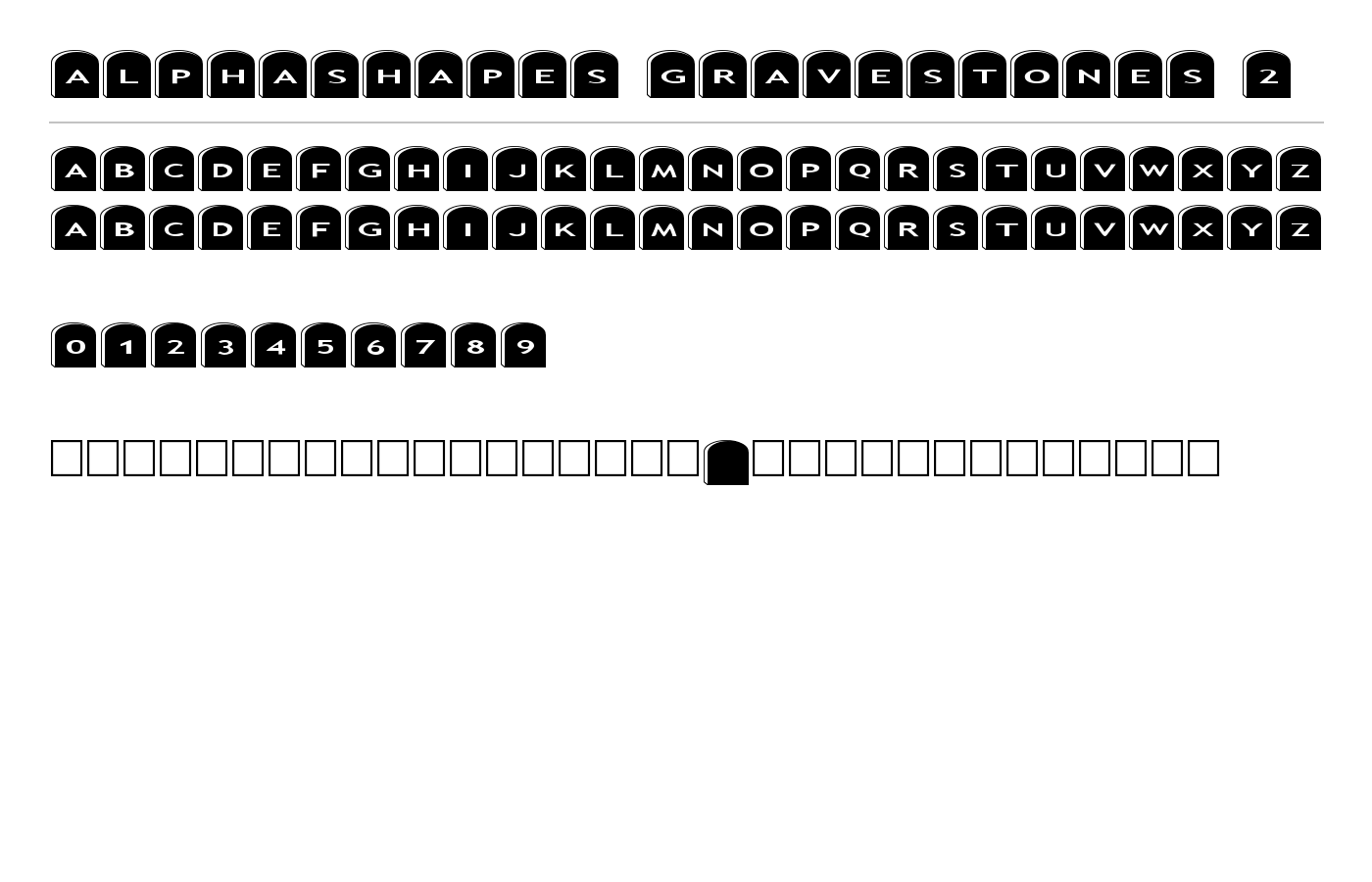
AlphaShapes Gravestones 2 is a bold, decorative font featuring uppercase letters and numbers styled to resemble tombstones with rounded tops and a subtle 3D shadow effect. Its playful yet eerie design makes it perfect for Halloween-themed projects, spooky invitations, or any creative work needing a touch of gothic charm. This font stands out best in headlines and display uses where its unique gravestone shapes can capture attention and set a distinctive tone.
AlphaShapes gravestones 2 Font
About AlphaShapes gravestones 2 Font
| Font family | AlphaShapes gravestones 2 Font |